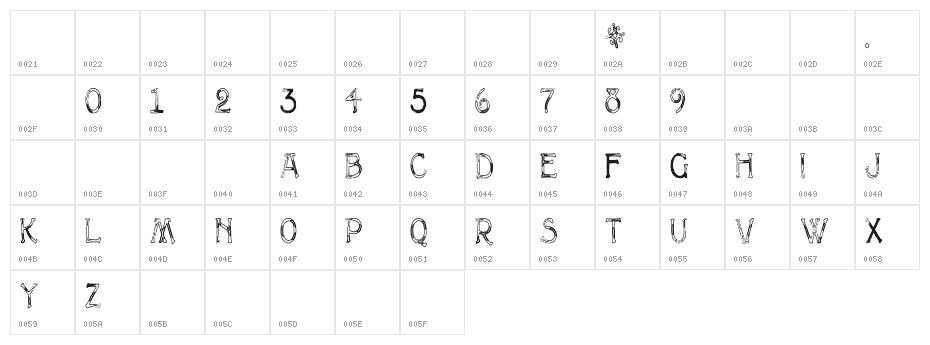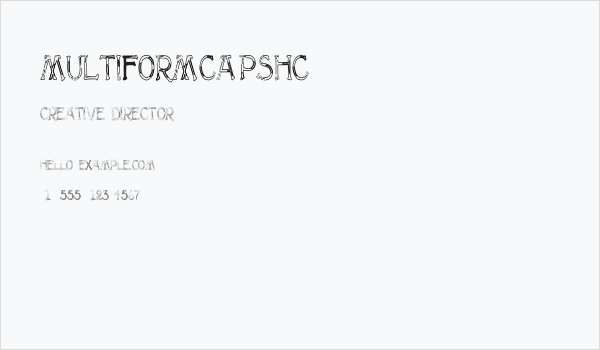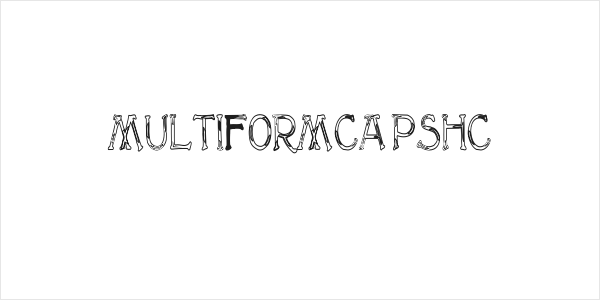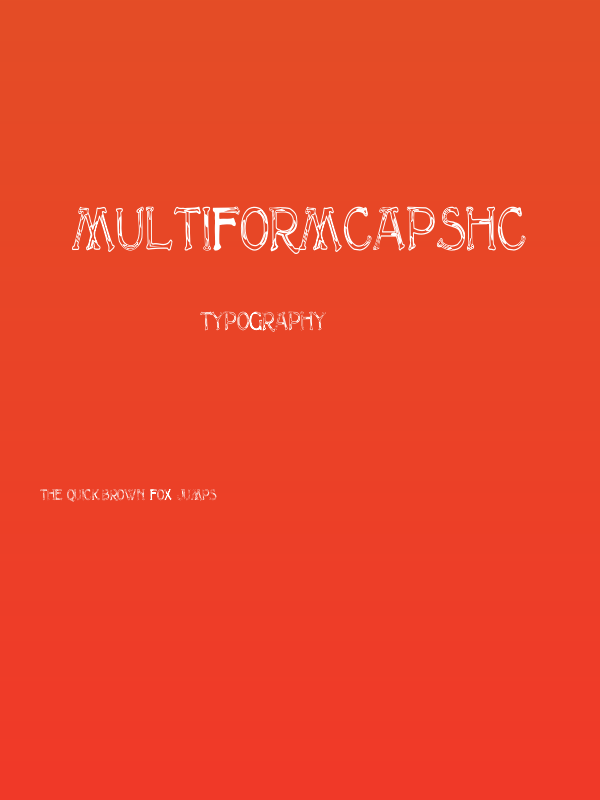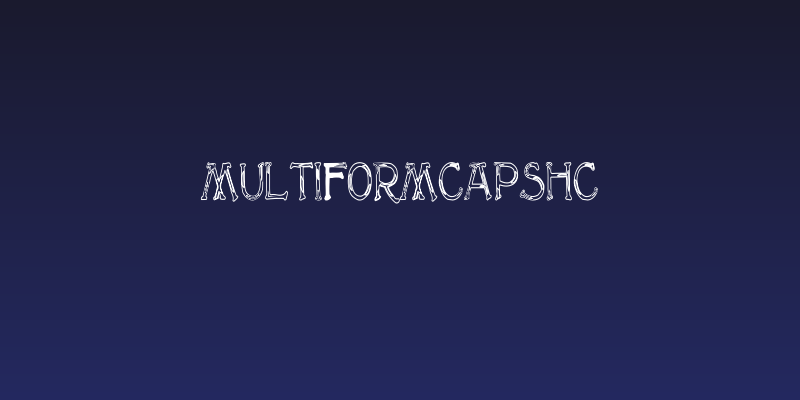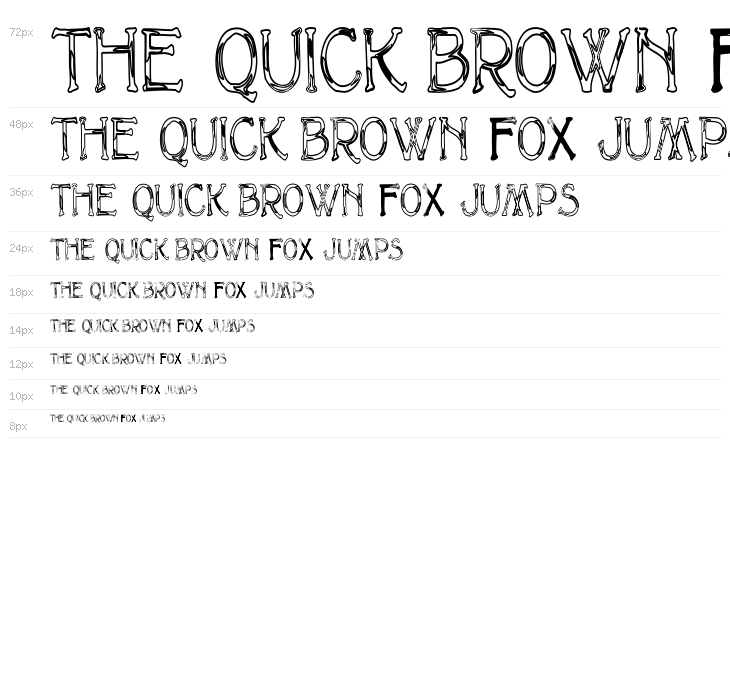
MultiformCapsHC Font
MultiformCapsHC Description
This font exhibits a unique and artistic style, characterized by its decorative and intricate design. Each letter is crafted with a combination of bold strokes and delicate, ornamental details that give it a distinct appearance. The uppercase letters are particularly striking, with embellishments that add a sense of elegance and flair. The numbers follow a similar design, maintaining the decorative theme throughout. This font is ideal for projects that require a touch of sophistication and creativity, making it suitable for artistic and expressive applications.
| Proposed Projects | Ideal for creative projects such as invitations, posters, and artistic branding. |